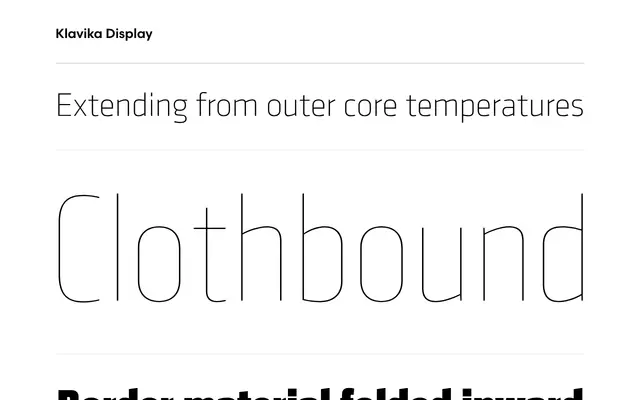
Klavika Display
Process Type Foundry · Eric Olson · 2012
An eight-weight display extension of the Klavika series by Eric Olson, spanning Thin to Ultra Black for large-scale typesetting.
Drawn independently of the original Klavika family, these eight styles function as exaggerated caricatures at either extreme rather than straightforward interpolations. The range runs from skeletal Thin to an oversized Ultra Black, with OpenType stylistic alternates for the 'g' and ampersand, plus arrow ornaments. It works alongside Klavika and Klavika Condensed or stands alone as a headline-only family.
Shares Klavika's geometric sans DNA but is drawn as an exaggerated display extension, with extremes from Thin to Ultra Black conceived independently as caricatures rather than interpolations.